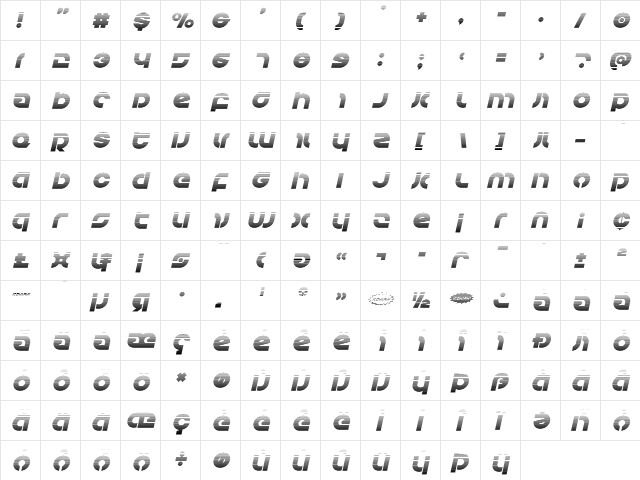
Kovacs Gradient Italic Italic
Design Context for Kovacs Gradient Italic Typeface
Kovacs Gradient Italic is a composed and adaptable typeface that performs quietly and consistently across a wide range of design contexts. The slanted form adds forward momentum and visual energy.